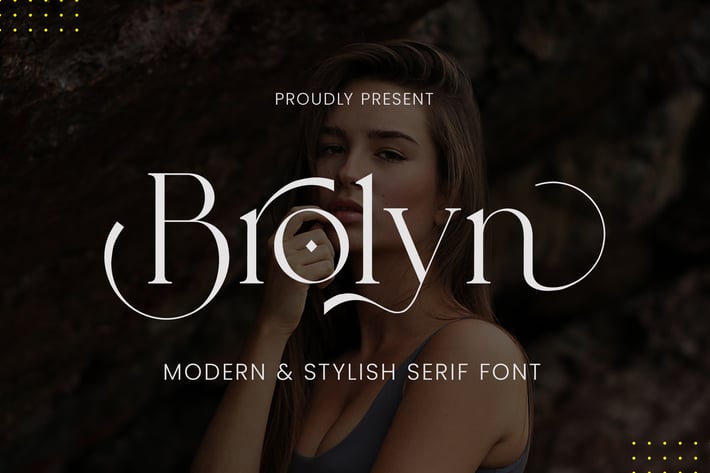
Brolyn Modern Serif Font
Brolyn Serif is a balanced, smooth, elegant and stylish serif font. He has a beautiful character. It fits perfectly with invitation card designs, company logos, movie titles, movie names, business cards, book titles, brand names and various other designs. Brolyn Serif is a subtle serif font that exudes sophistication and elegance. Its stylish alternations and ligatures make this font the perfect partner for any project.